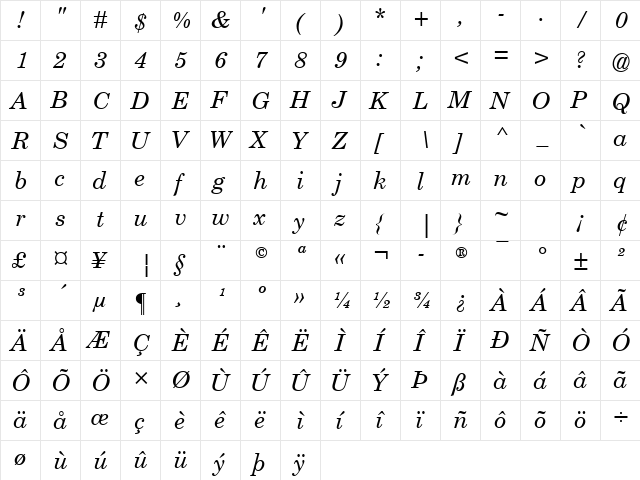
CenturySchlbk Italic
Design Context for CenturySchlbk Typeface
CenturySchlbk takes a measured approach to typography — its balanced proportions and neutral character make it a reliable workhorse for both digital and print work. Its italic angle brings a sense of urgency and motion to the letterforms.
Pro Tip: Try CenturySchlbk for annotation and caption copy alongside an upright companion — the contrast in angle creates a dynamic but ordered typographic system.